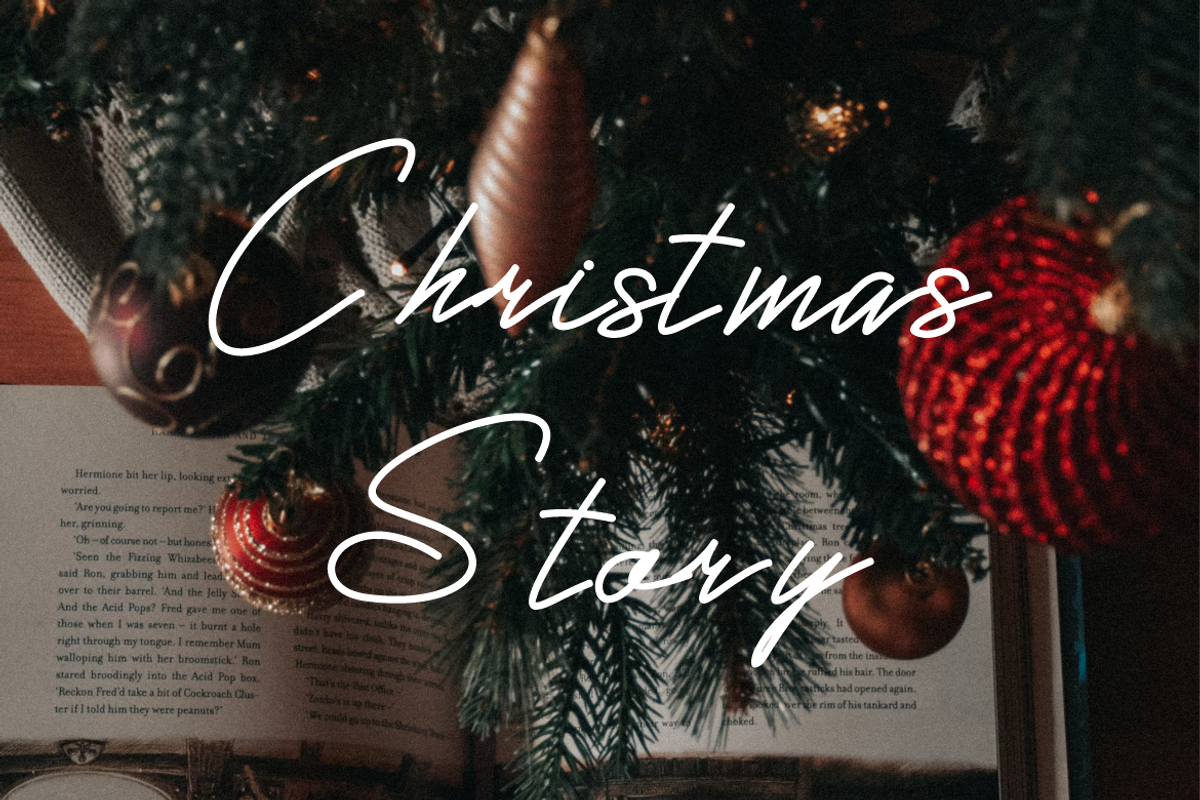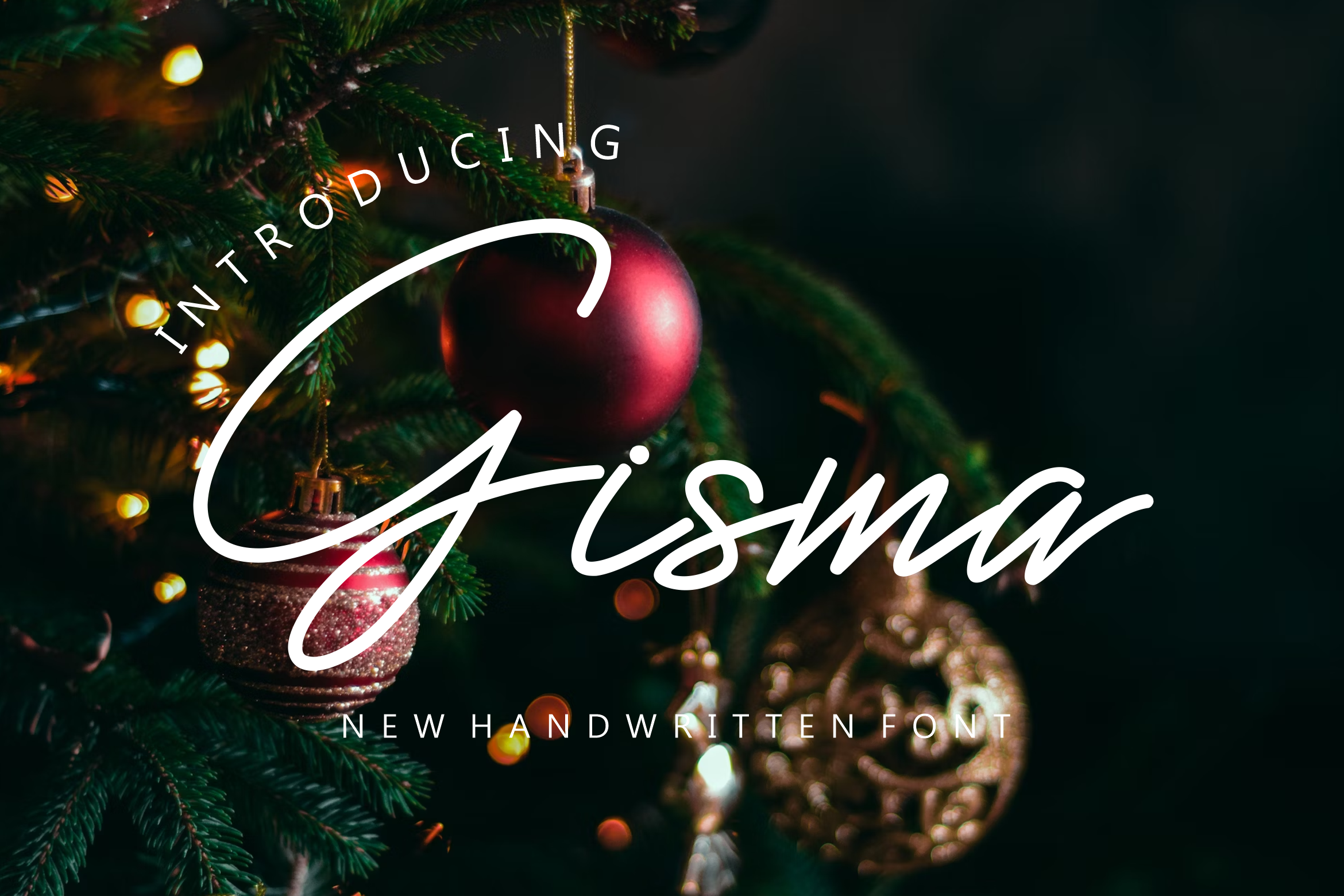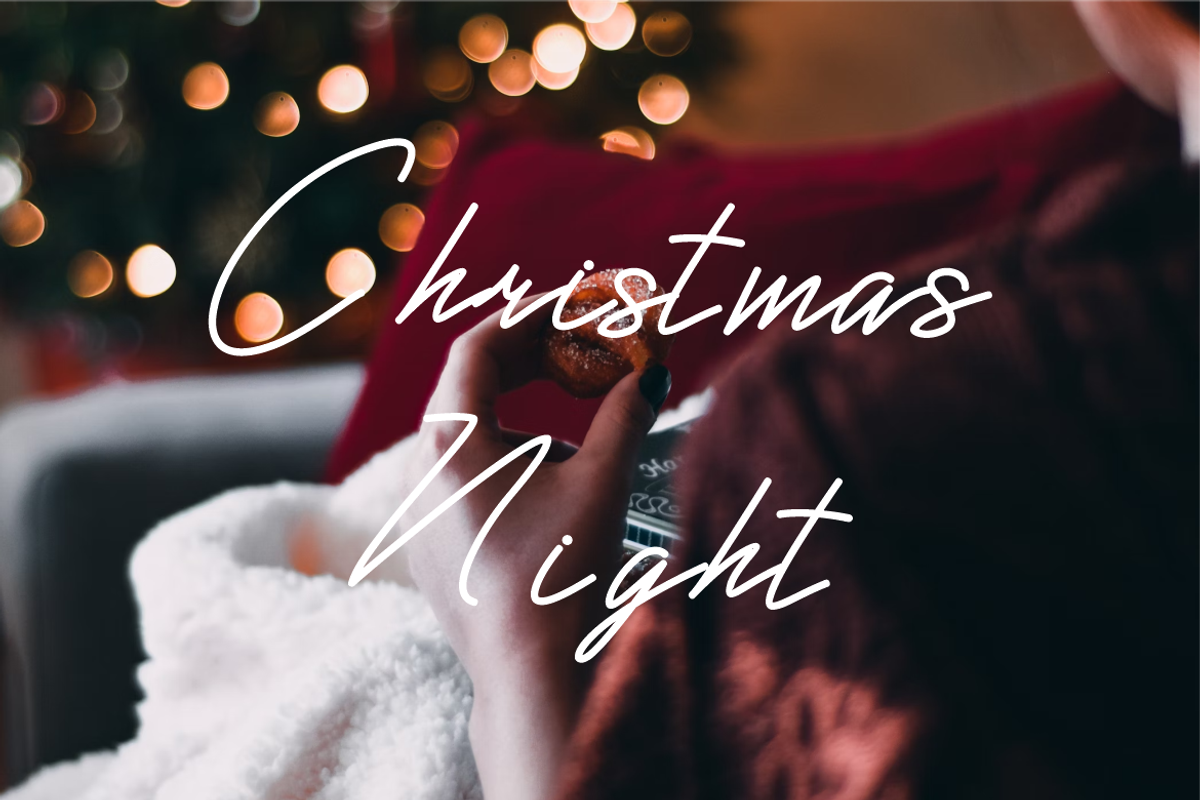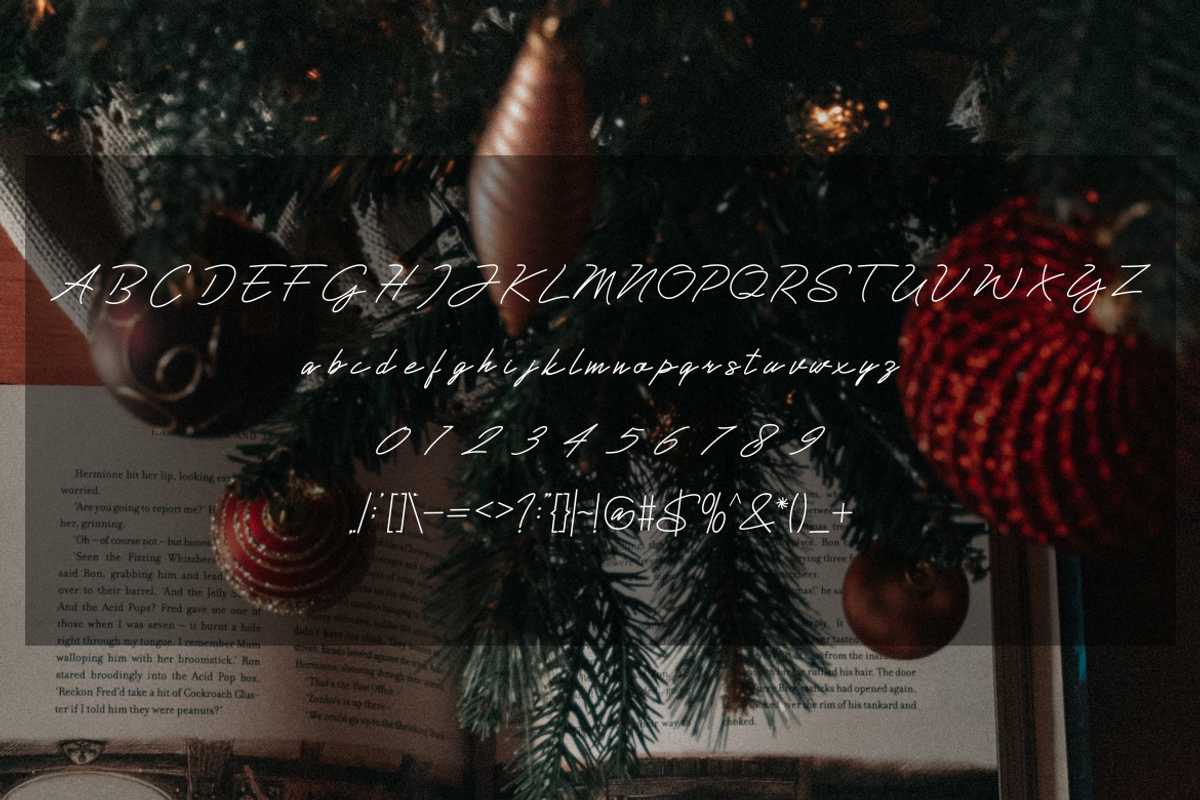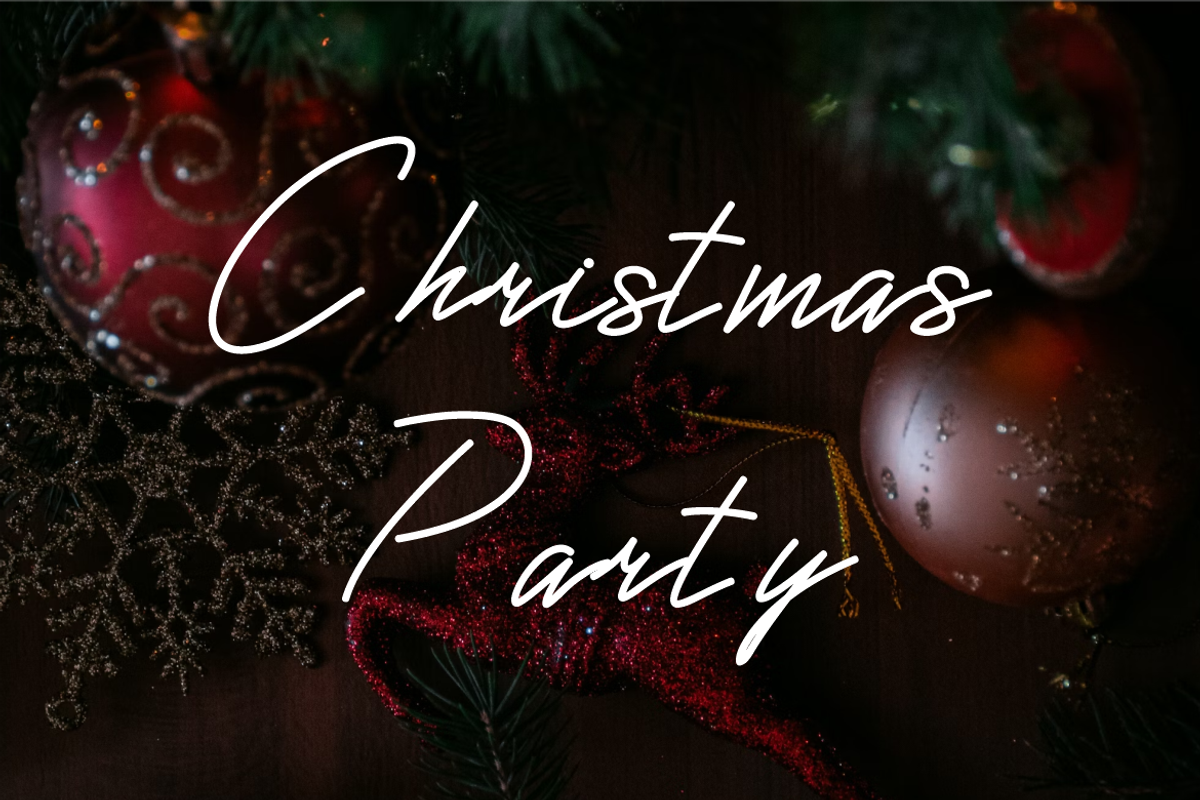
Gisma Handwritten font
Gisma Handwritten font – Handwriting Script Font is a Cute Handwriting typeface, perfectly suitable for creating quotes, Wedding Invitations, lifestyle designs such as logos, title, magazine, and more.